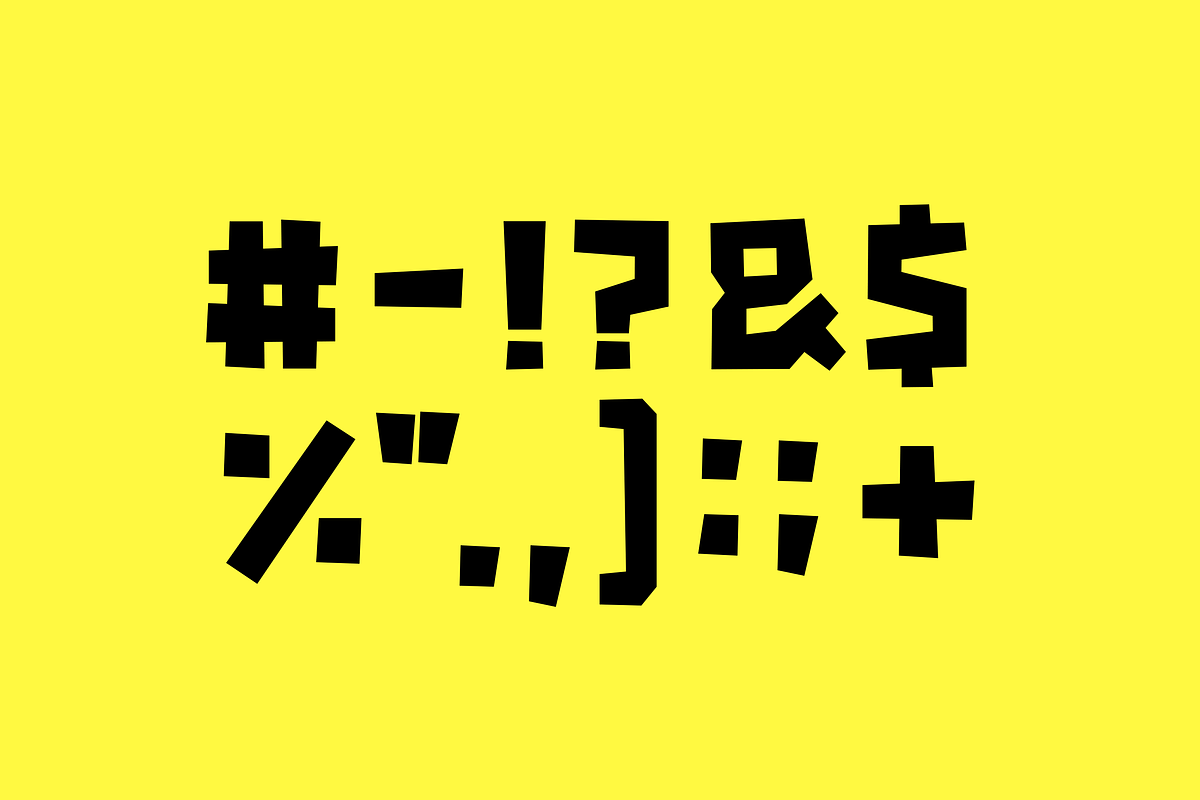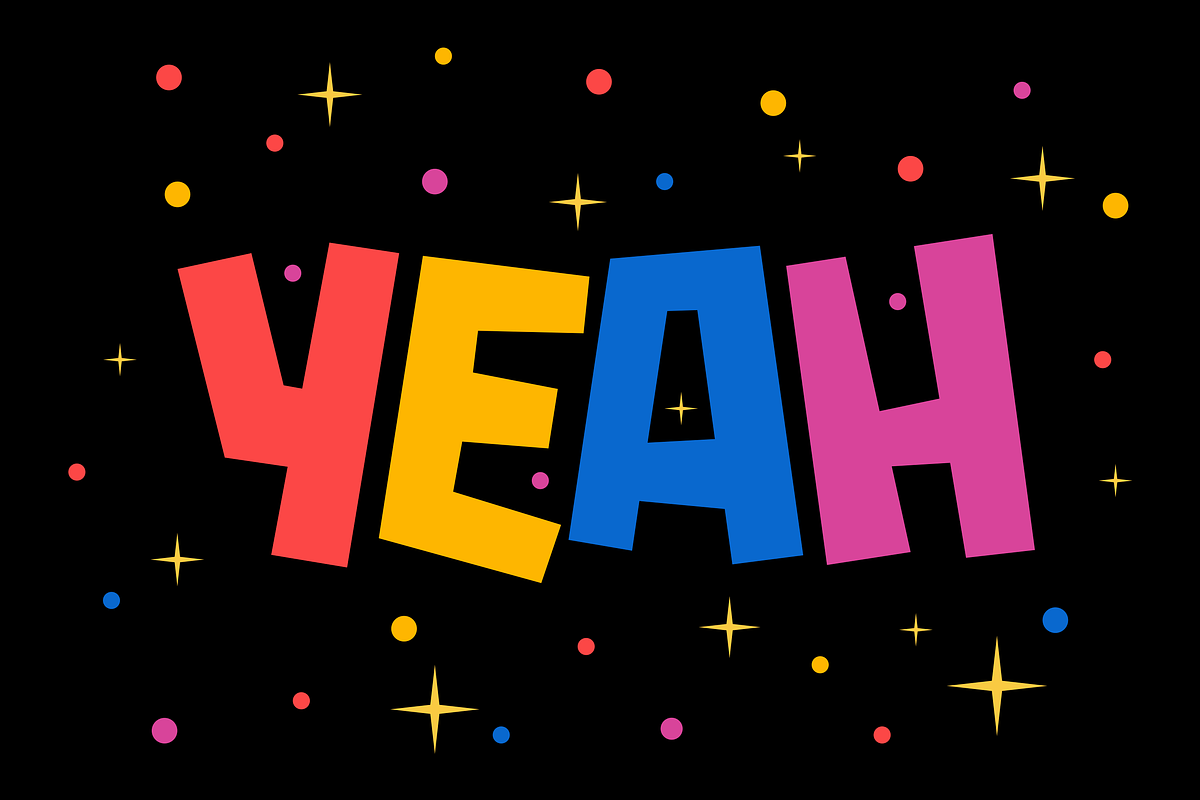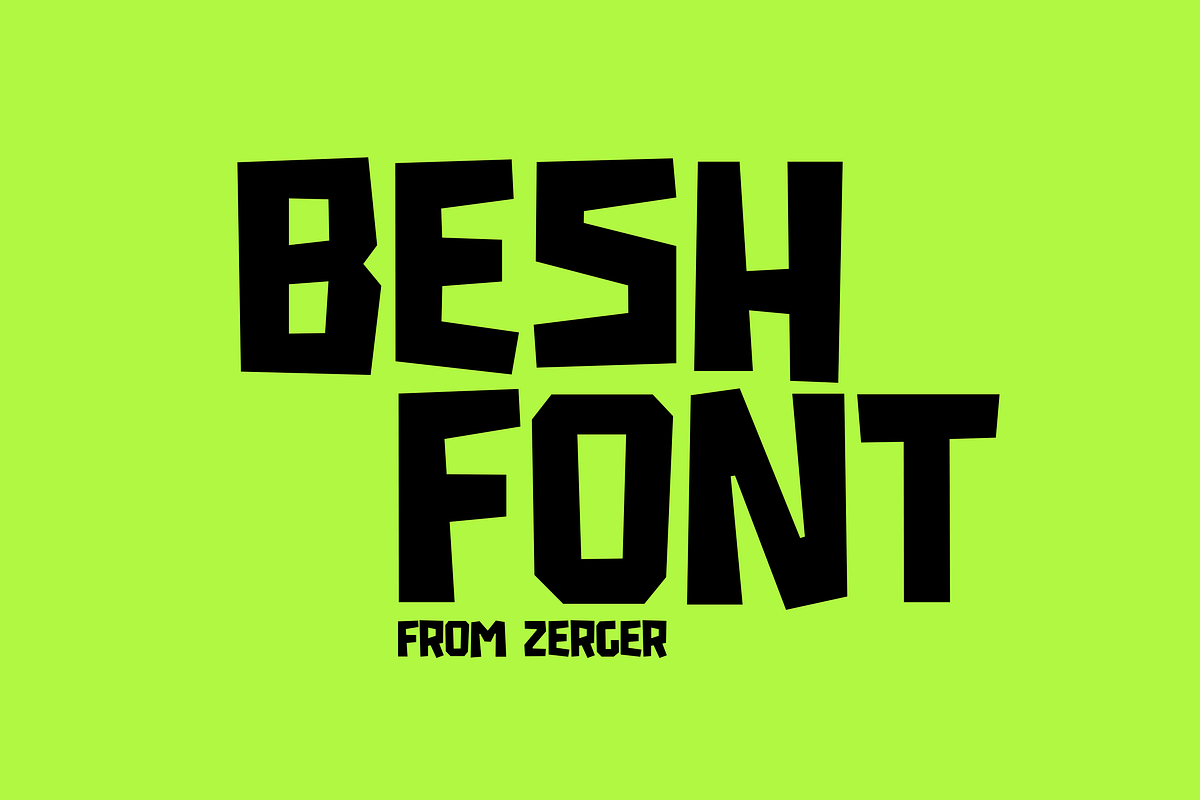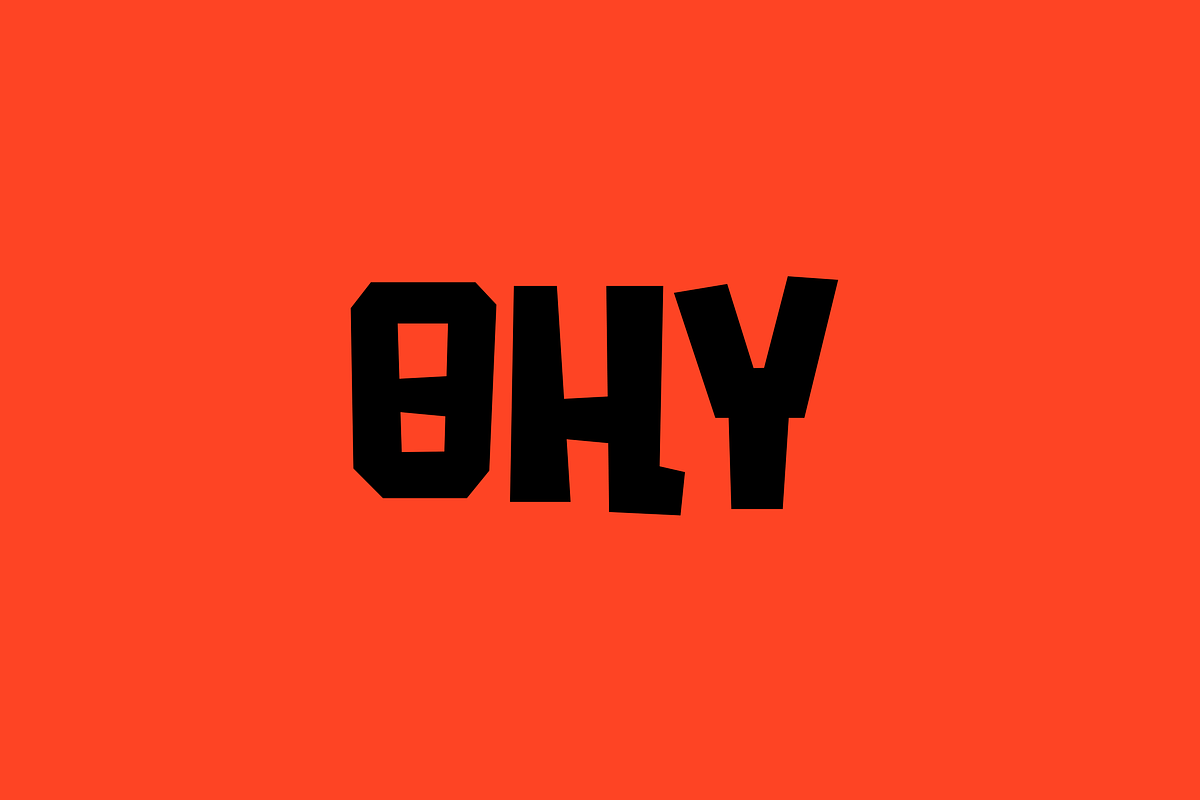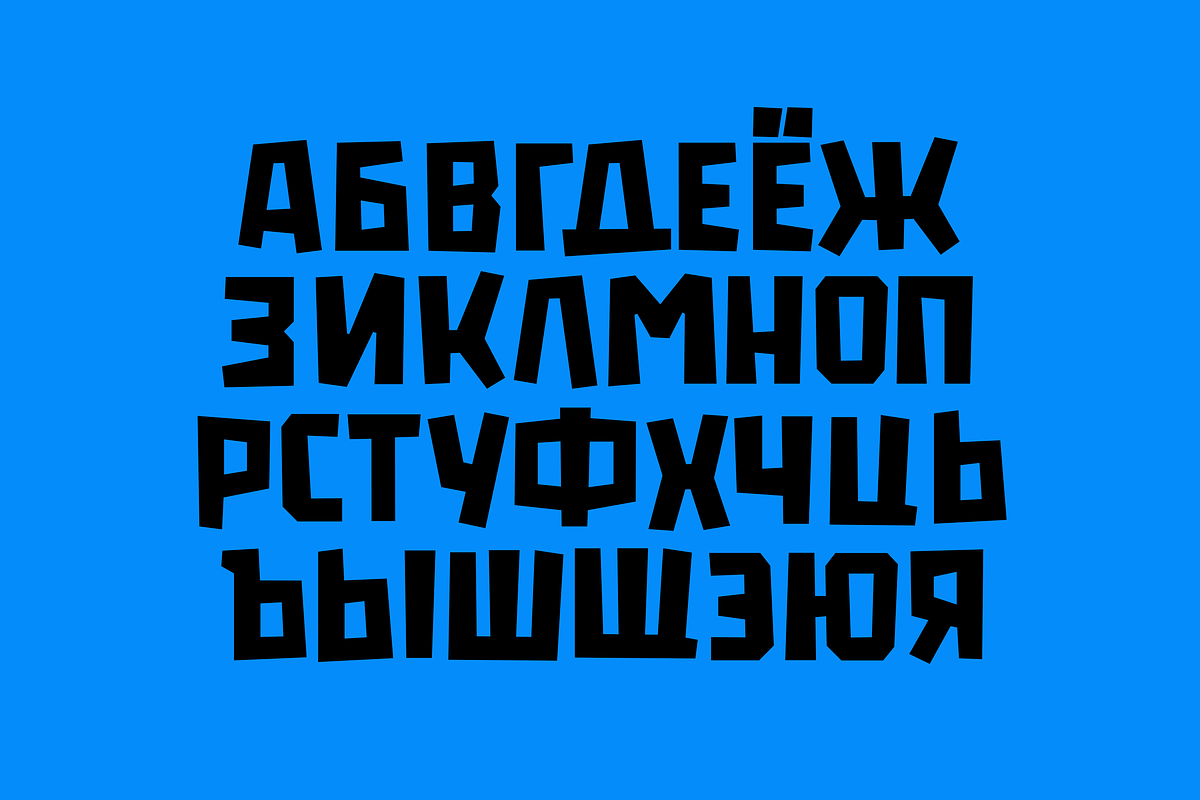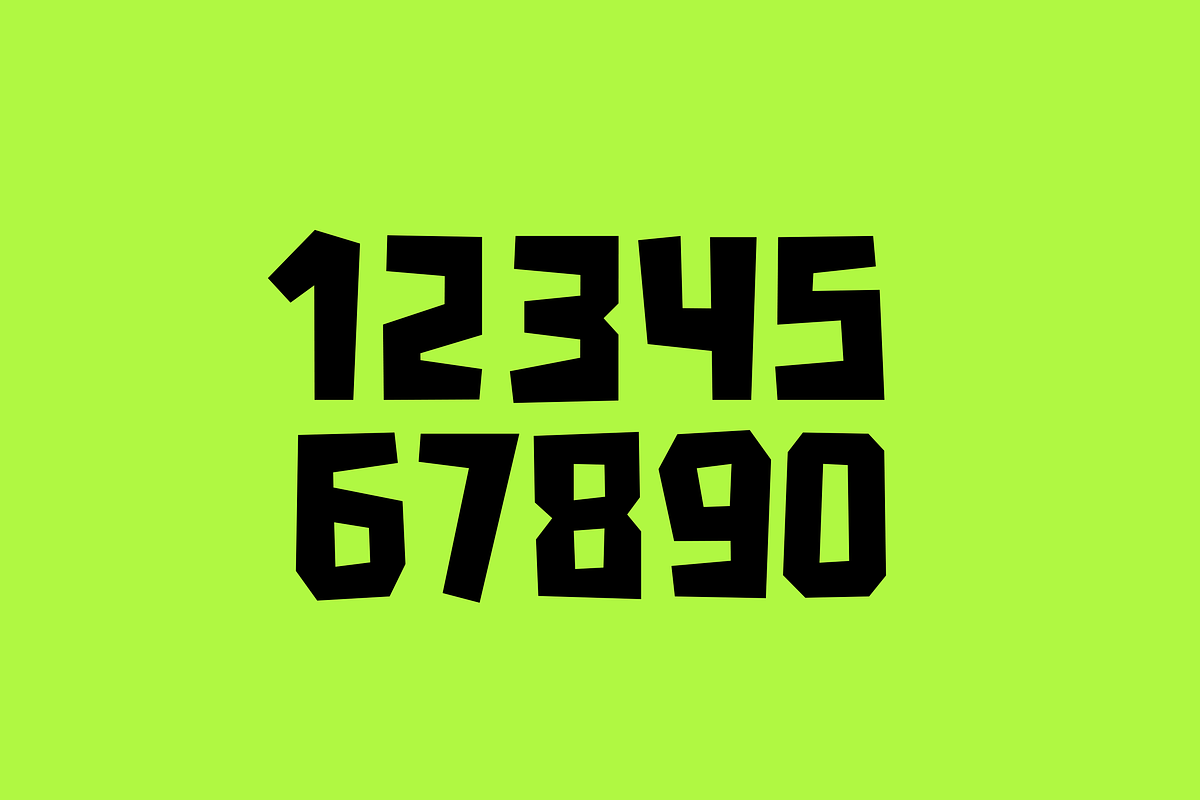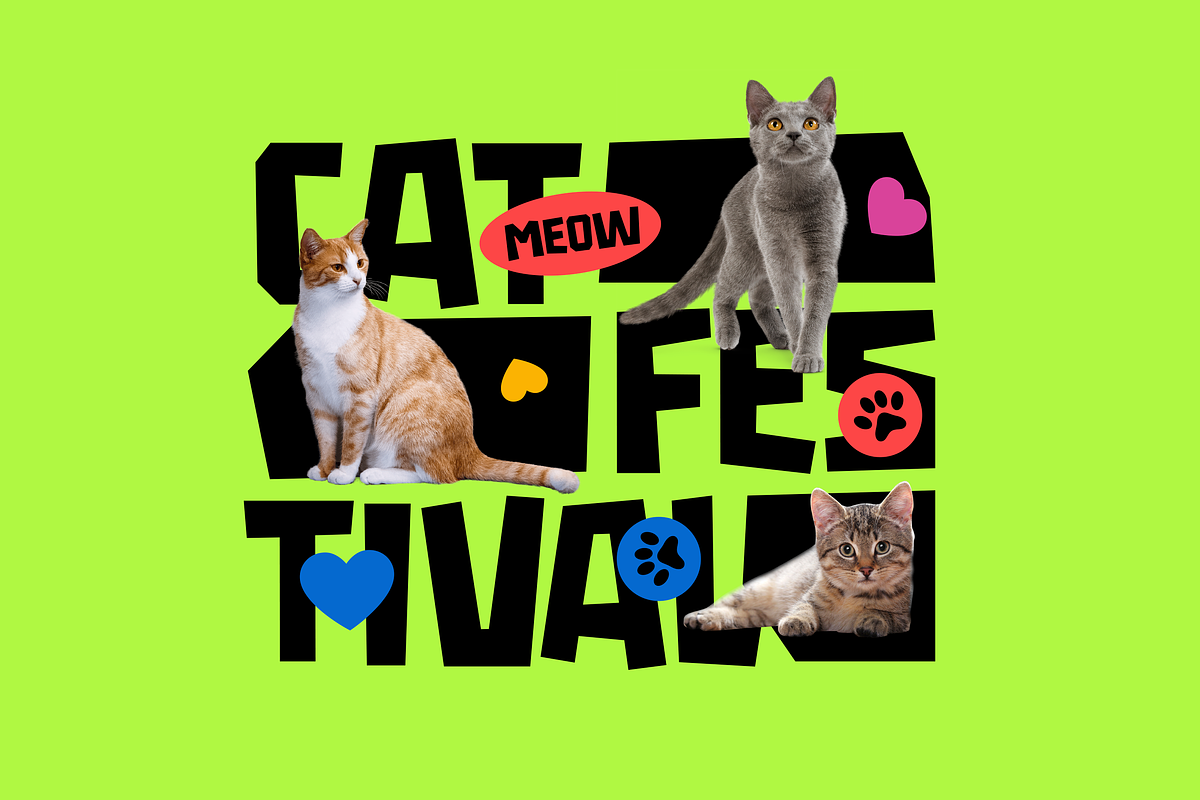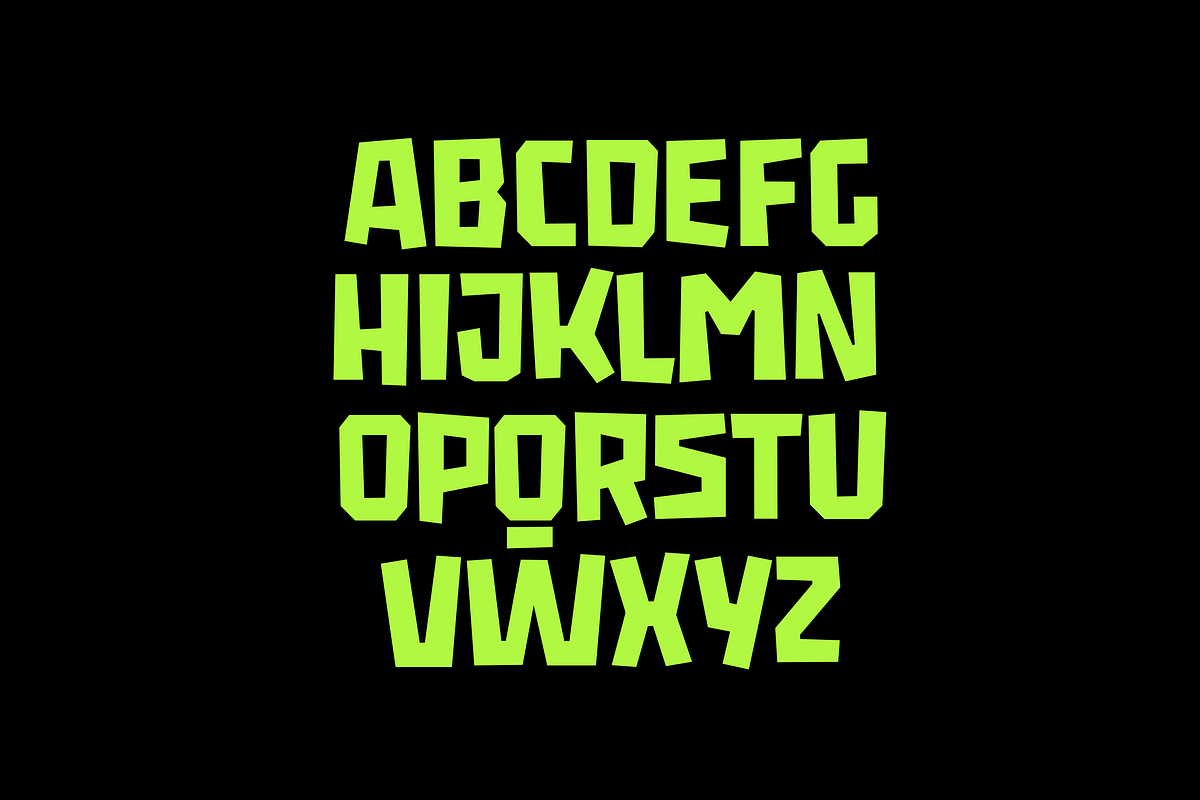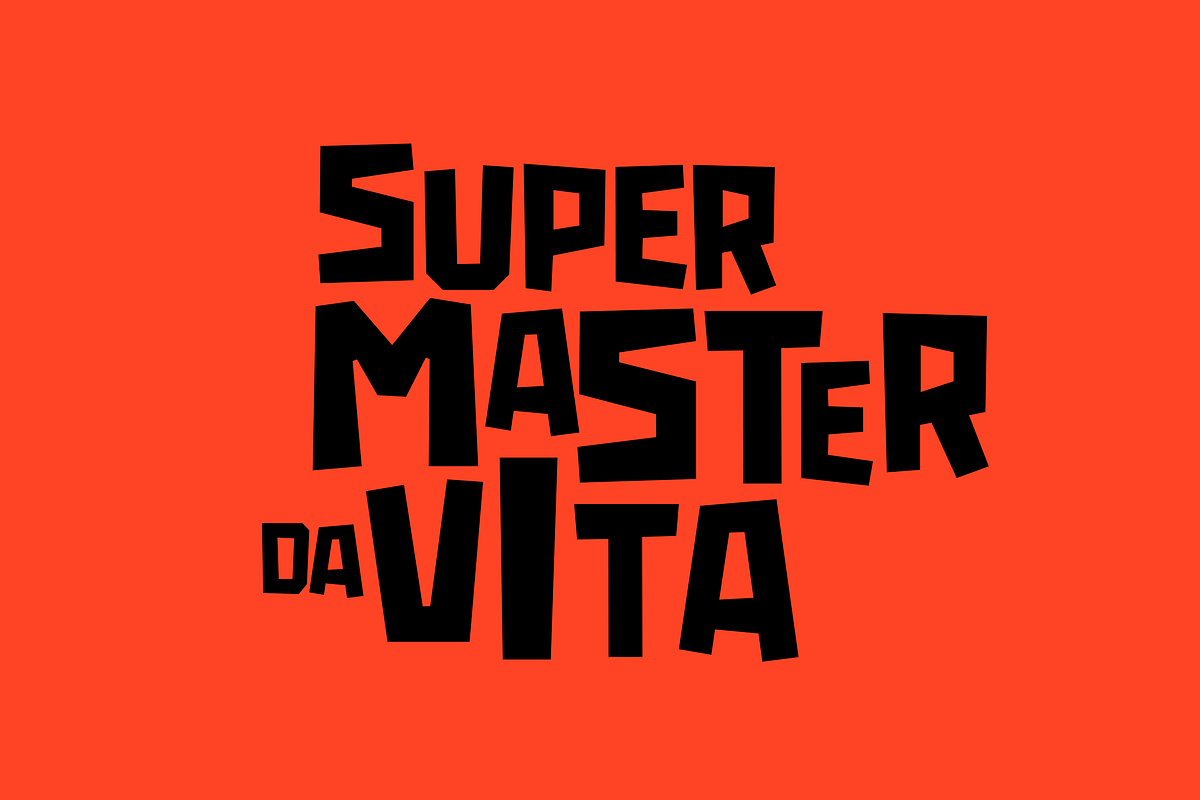
Besh display font
Besh handcrafted character is friendly and eye-catching. Stylish features and alternates add personality and let you create unique logos and stunning headlines.